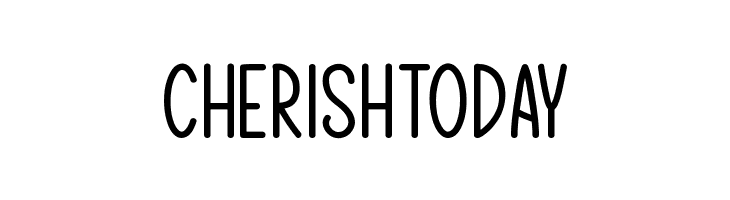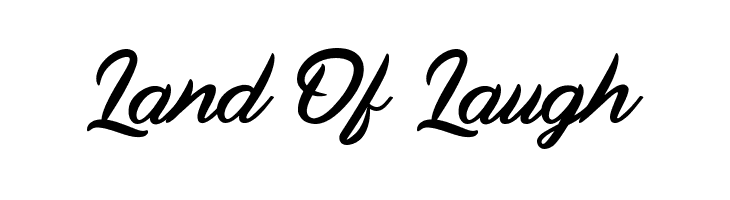
A bold, stencil-like font with high contrast and geometric precision.
A casual, handwritten font with thin, uneven strokes and playful curves.
Casual, hand-drawn sans-serif font.
A futuristic, condensed italic font with sharp, angular edges.
A bold, distressed font with a vintage, industrial feel.
A bold, semi-italic font with angular, dynamic characters.
A bold, layered font with intersecting lines creating a dynamic, retro-modern look.
A bold, playful serif font with thick, blocky serifs and a slightly condensed style.
A sketch-style italic font with a dynamic and artistic outline.
A bold, flowing script font with a handwritten style.